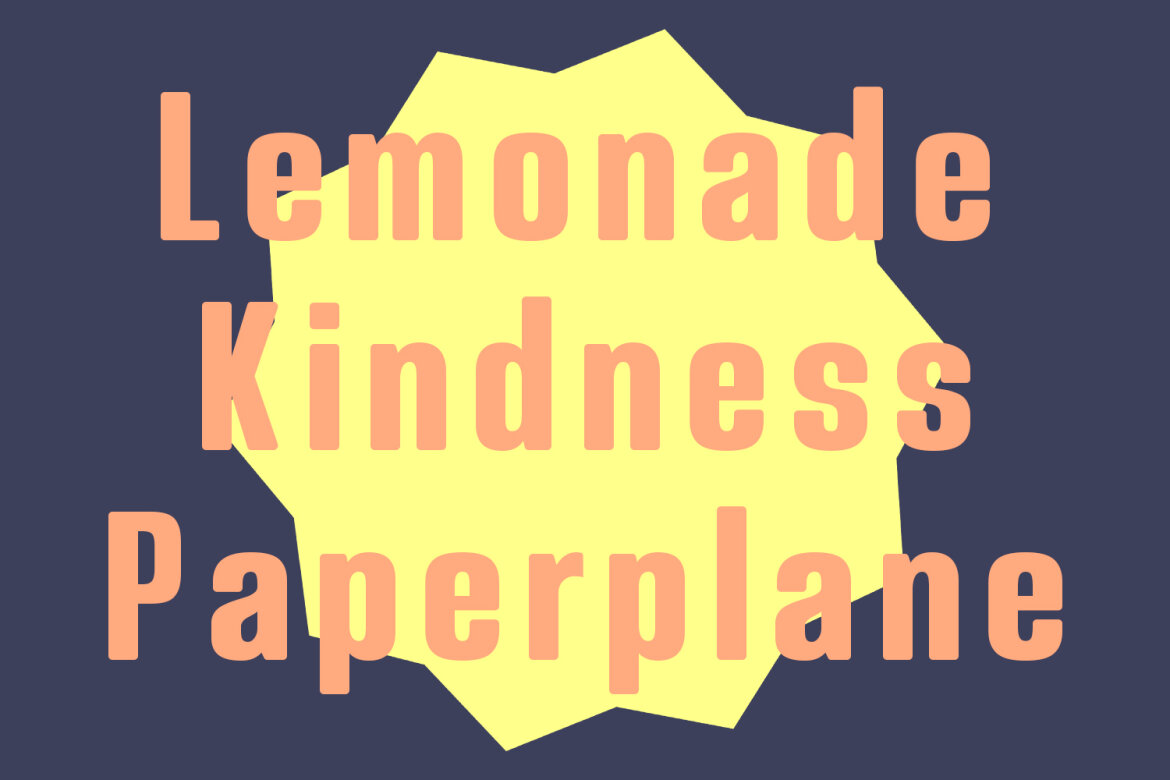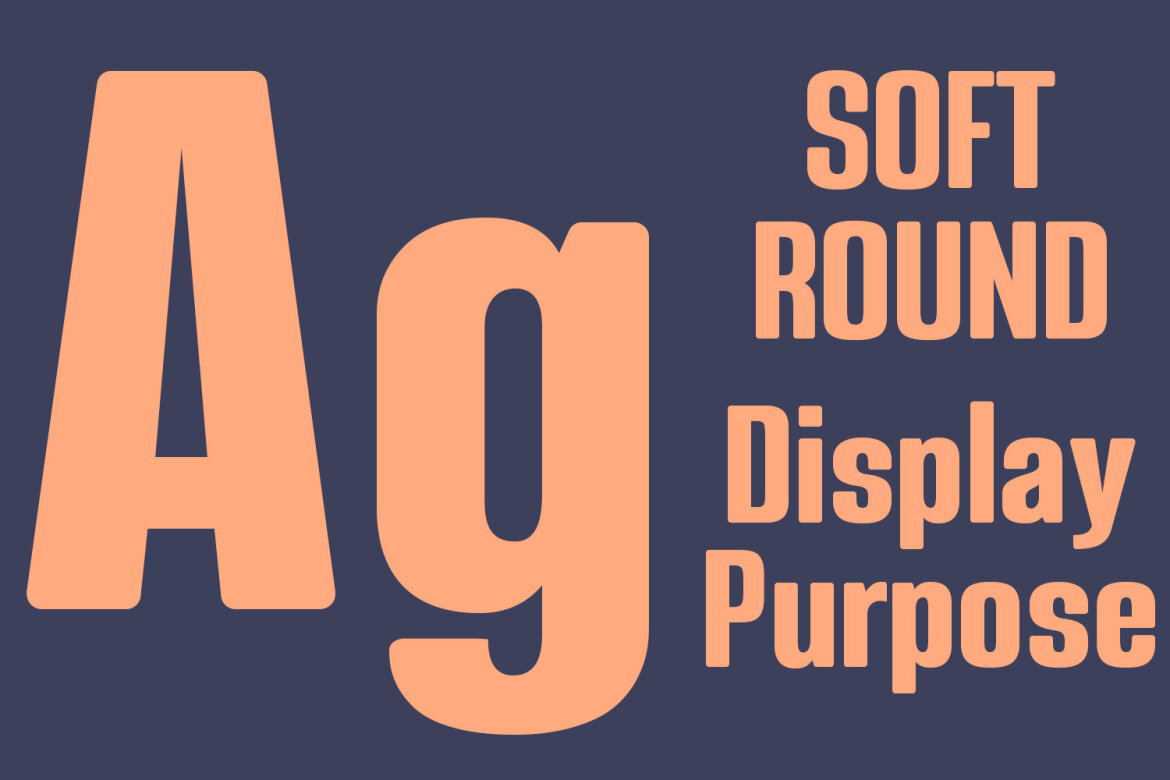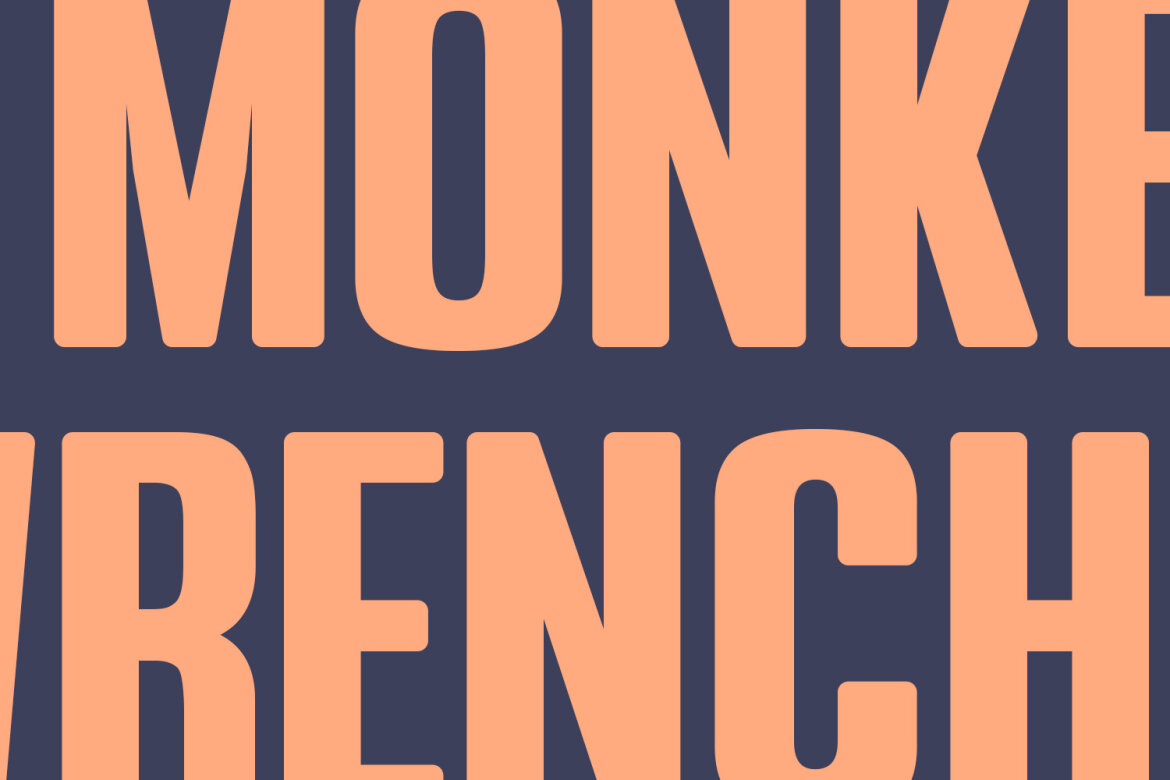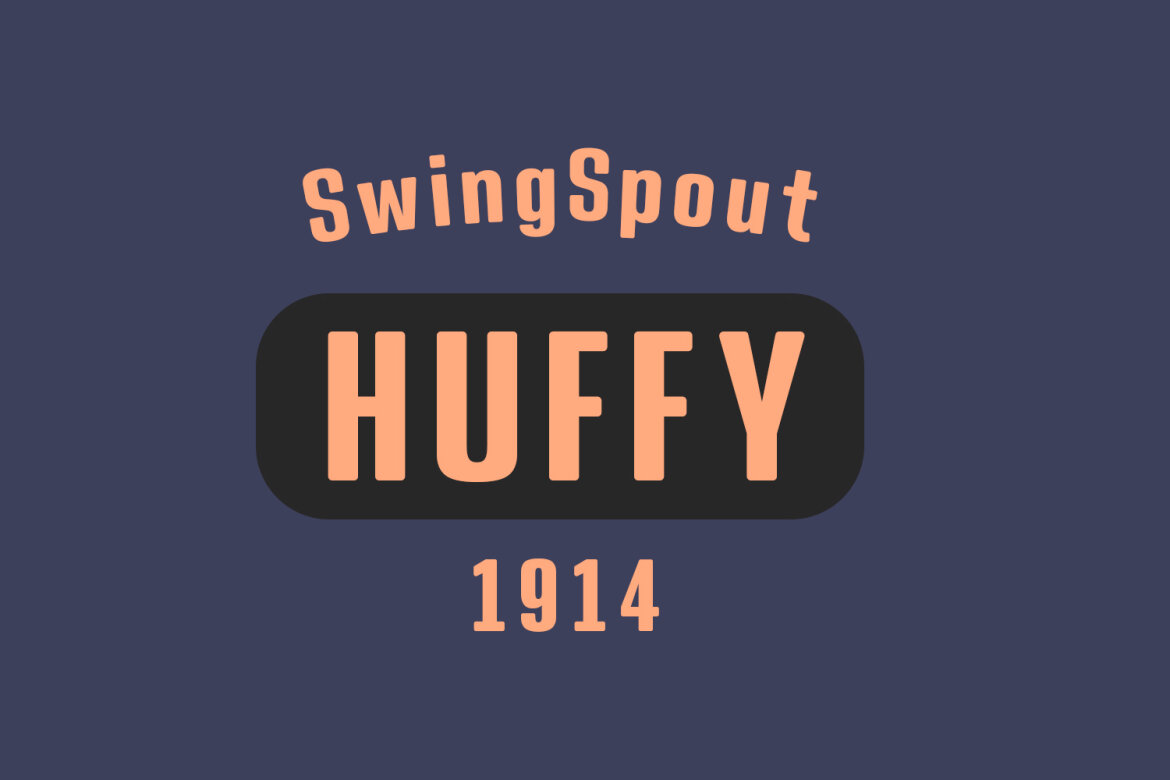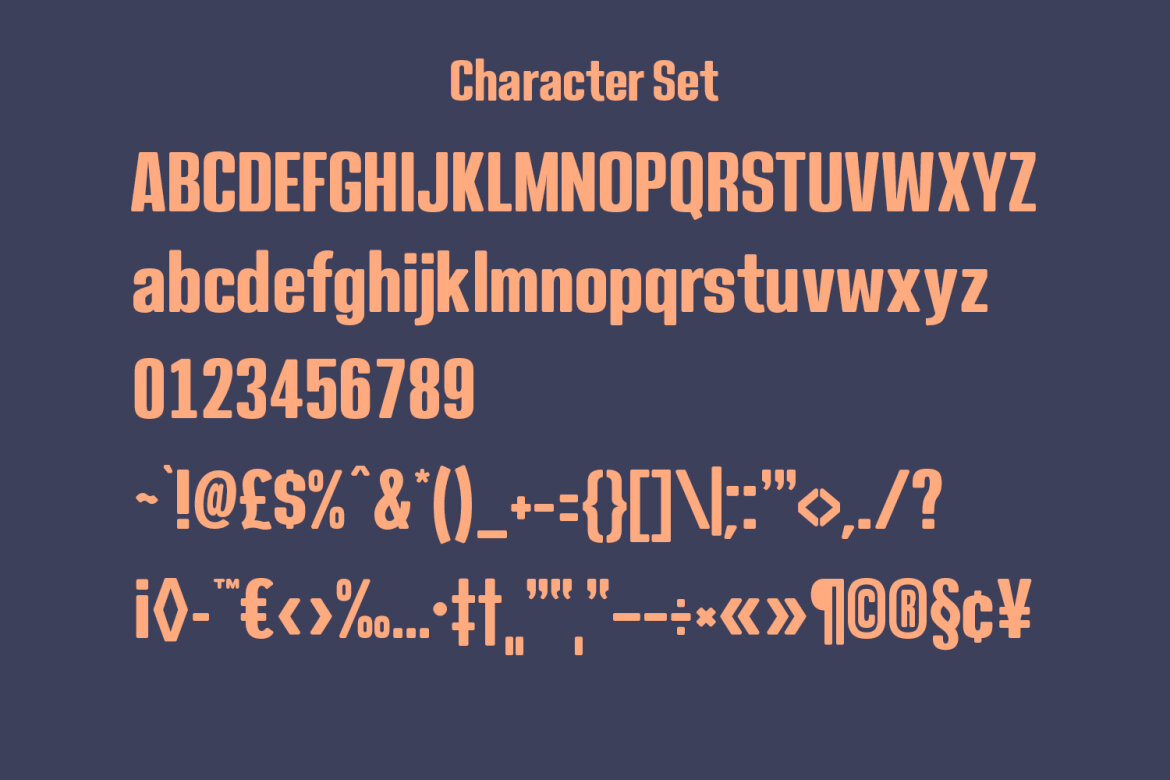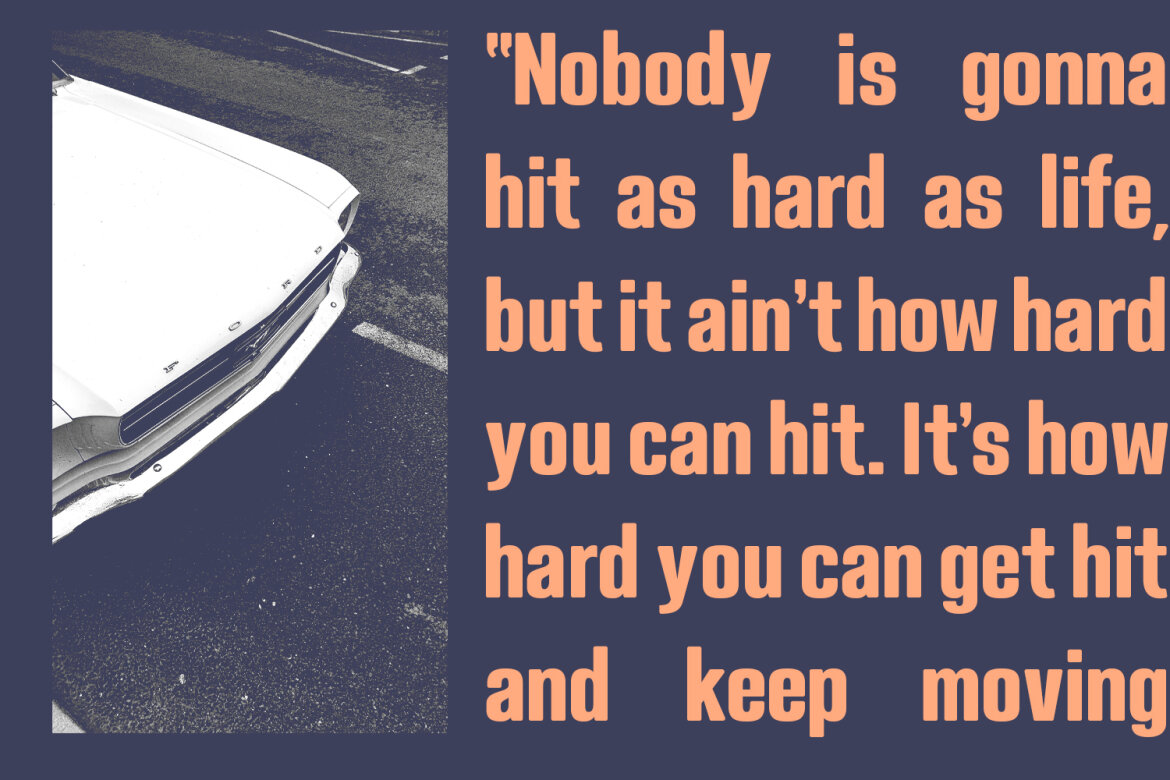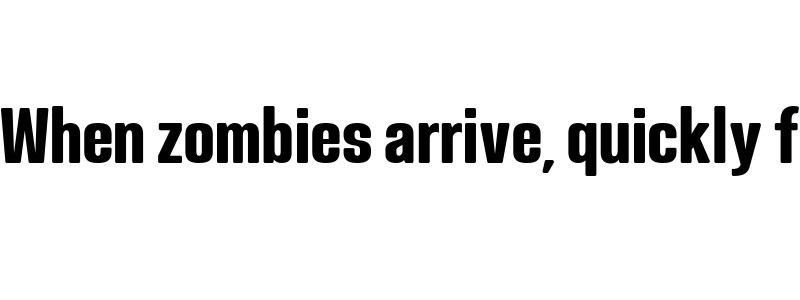
Defoils Sans FREE Font
Defoils is a classic sans serif font. With medium stroke, fun character with a bit of ligatures and alternates. To give you an extra creative work. Defoils font support multilingual more than 100+ language. This font is good for logo design, Social media, Movie Titles, Books Titles, a short text even a long text letter and good for your secondary text font with script or serif. Make a stunning work with Defoils font.